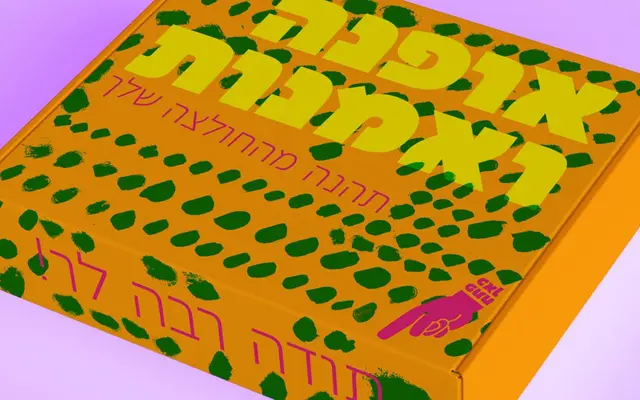
A bilingual sans serif in Latin and Hebrew covering seven weights with italics, built around a large x-height and squarish curves for use across information design, branding and editorial contexts.
Named after the mountain goat of the Catalan Pyrenees, it carries warmth and approachability through its squarish curves and generous x-height without sacrificing the legibility needed for complex typesetting. The family is sold in separate Hebrew, Latin and combined Hebrew-Latin packs, with fourteen styles each, allowing buyers to licence only what they need. Its range of weights from Thin to Black makes it functional across packaging, advertising and magazine layouts as well as interface and information design.
A multipurpose sans serif with squarish curves, large x-height and warm proportions pointing to a humanist classification, designed for both text and display use across Latin and Hebrew scripts.